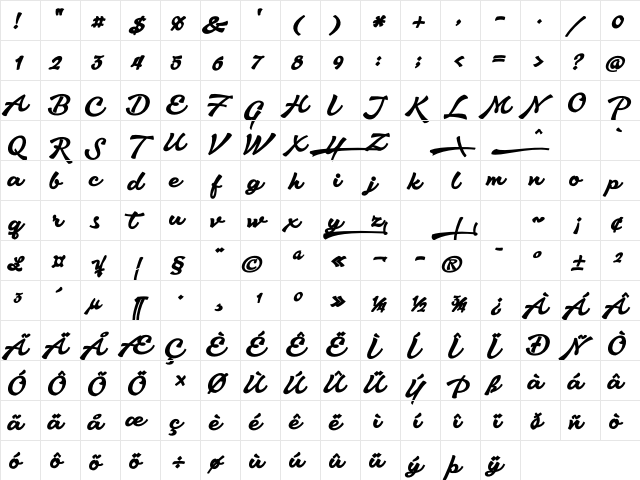
Aromia Script Black Regular
| Designer | Mans Greback |
Design Context for Aromia Script Black Typeface
Aromia Script Black brings a calligraphic fluidity to the page — its connecting strokes and expressive curves give it an unmistakably human quality.
Font Pairing: Combine Aromia Script Black with a simple geometric sans for maximum contrast — the tension between flowing curves and clean structure is a classic typographic pairing.
Pro Tip: Pair Aromia Script Black with a clean sans-serif for supporting text. The contrast between fluid script and geometric structure creates an elegant typographic hierarchy.